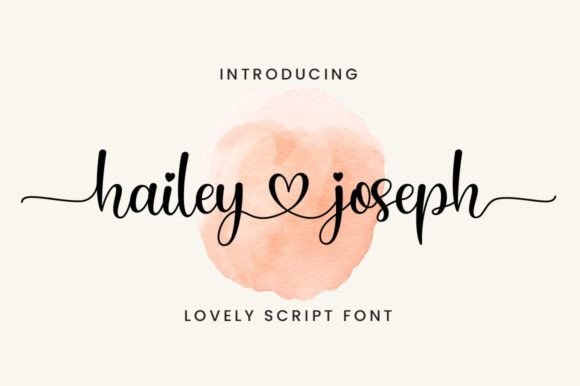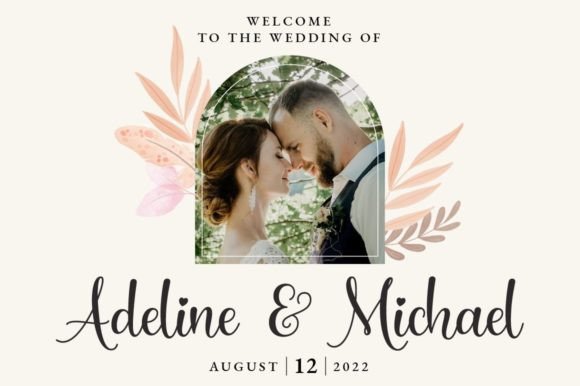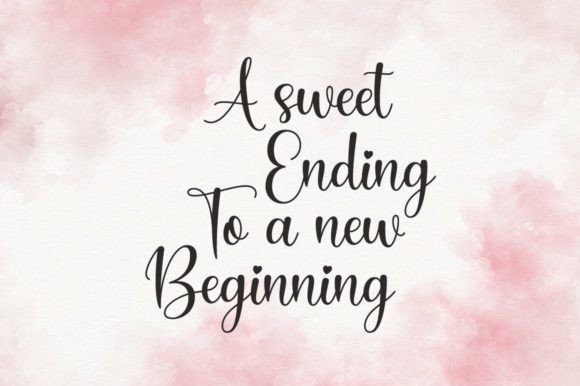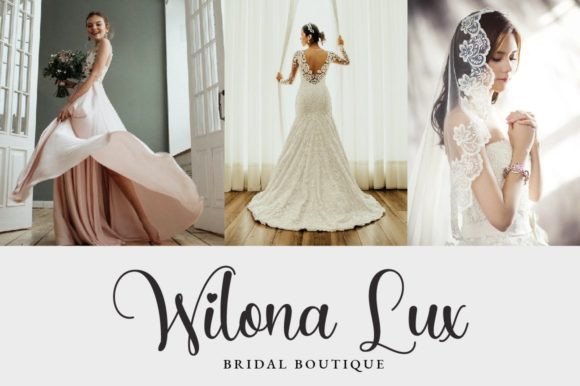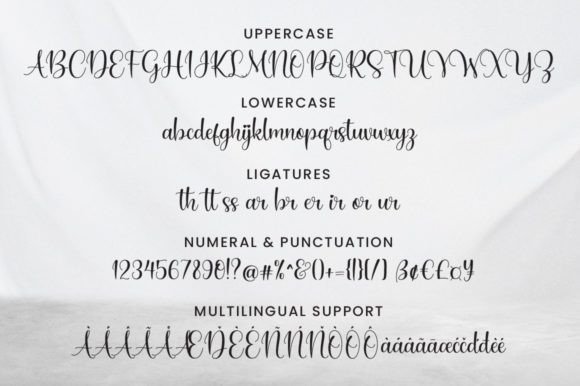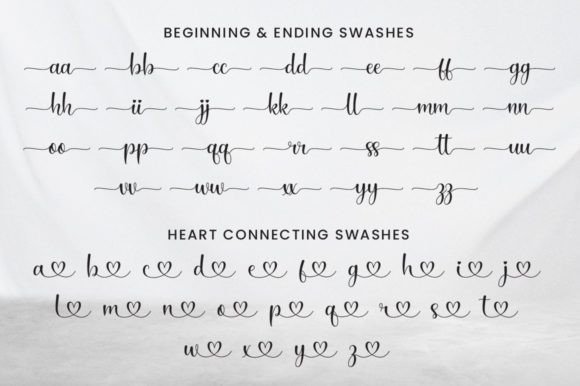
Hailey Joseph Font
Hailey Joseph is a modern calligraphy font with smooth handwritten flows. Hailey Joseph is perfect for logos, wedding stationery, cards, gift designs, photography, watermark, product packaging, and handwritten quotes.